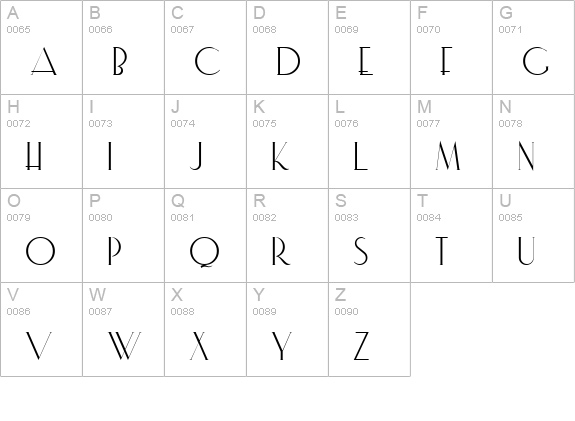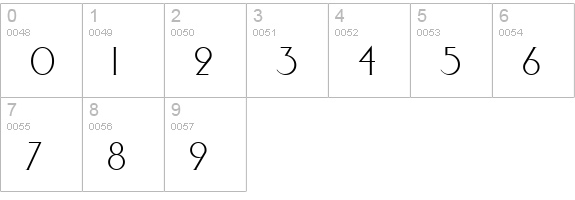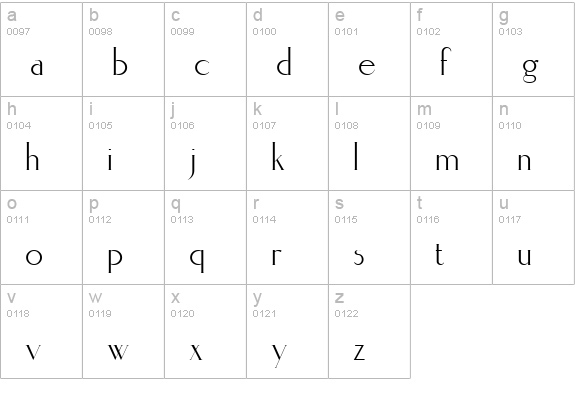
Elisia font is a modern and elegant typeface that exudes sophistication and style. With its clean lines and graceful curves, Elisia is perfect for a wide range of design projects, from branding to editorial work. This versatile font is both timeless and contemporary, making it a great choice for any creative endeavor. The best part? Elisia font is available for free download at FontsMarket.com. That's right, you can add this beautiful typeface to your font library without spending a dime. Whether you're working on a website, a logo, or a print project, Elisia font will elevate your design and give it that extra touch of class. Download Elisia font today and see the difference it can make in your work.